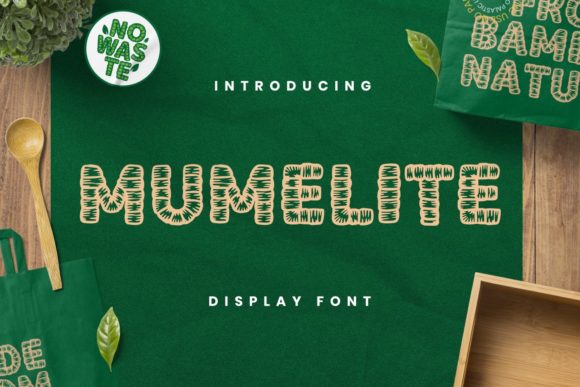
Prepare to be captivated by Mumelite Font, an extraordinary display font that will make your designs shine. Its charming and playful essence make it the perfect choice for adding a touch of magic to your creations.
If you're looking to create a captivating logo that commands attention, Mumelite Font is your secret weapon. Its unique and eye-catching style will ensure your logo stands out from the crowd, leaving a lasting impression on all who see it.
For those seeking to bring life to their children's games, Mumelite Font is a dream come true. Its playful nature will engage young minds, making your games not only visually appealing but also unforgettable experiences.
But Mumelite Font's versatility goes beyond children's creations. Whether you're working on quirky cartoon designs or any other project that calls for a touch of whimsy, this font will effortlessly elevate your work to new heights. Its enchanting quality will infuse your creations with a sense of wonder, drawing viewers into your imaginative world.
So why settle for ordinary fonts when you can unleash the extraordinary with Mumelite Font? Let its captivating charm and endless possibilities ignite your creativity and leave a lasting impression on your audience.